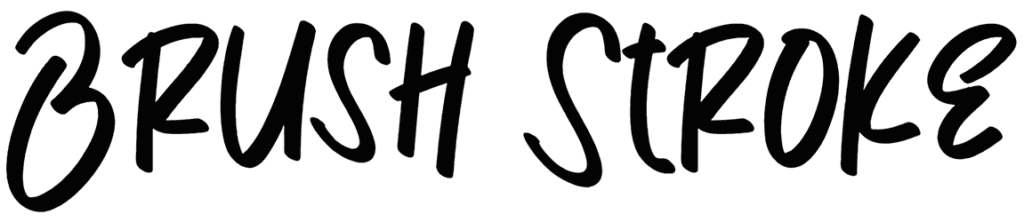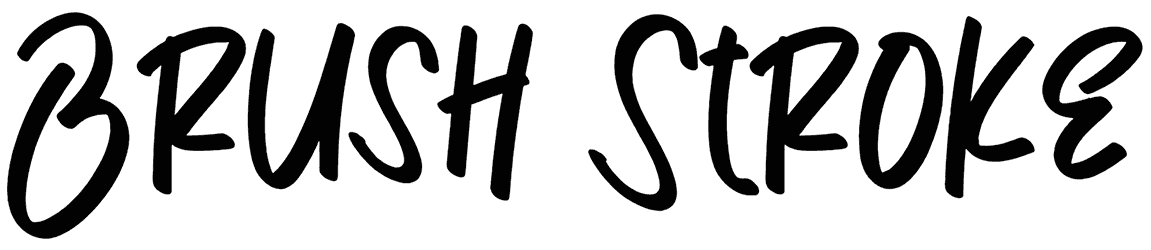
Brush Stroke Font
If you’re looking for a modern script font with a sophisticated look, take a glance at Brush Stroke. This handwritten font’s versatility makes it perfect for a wide range of applications, from logos and blog headlines to posters, invitations, and postcards.
With this brush font that comes with a mixture of both upper and lowercase letters, you might be able to create a warmer tone. It takes two minutes to add a creative touch to simple lettering.